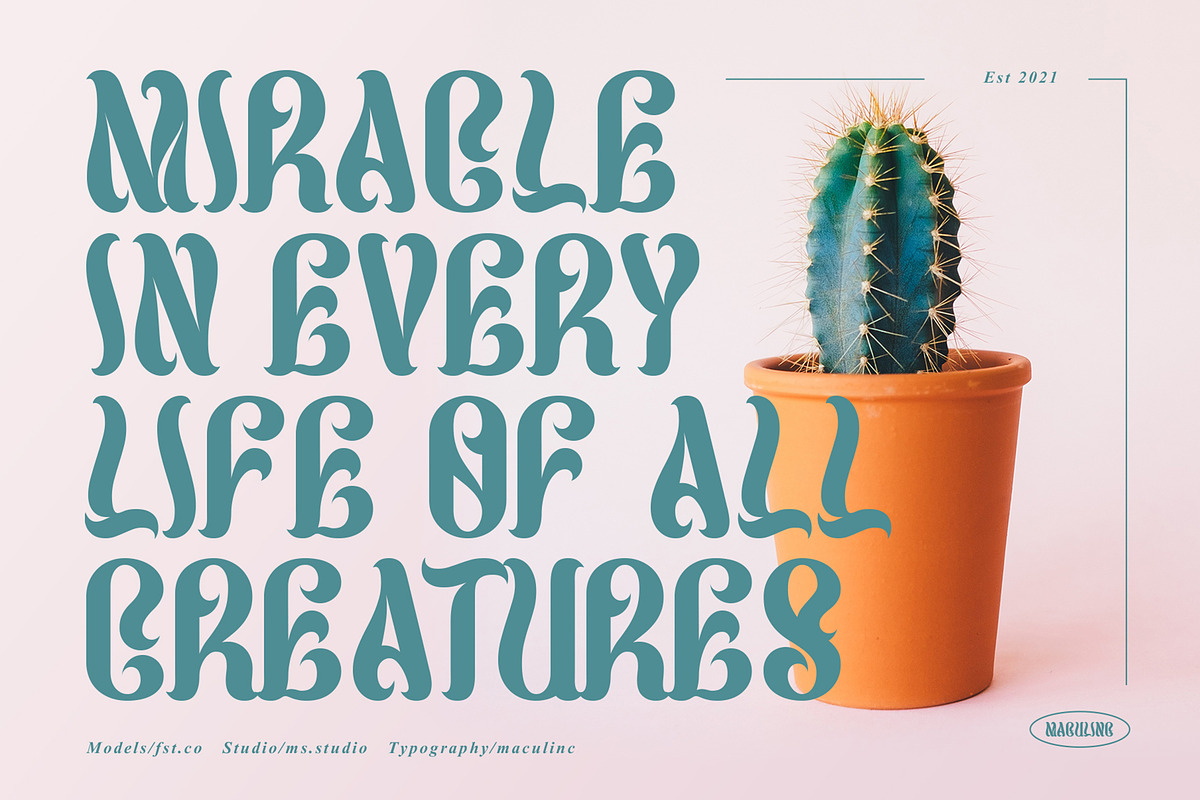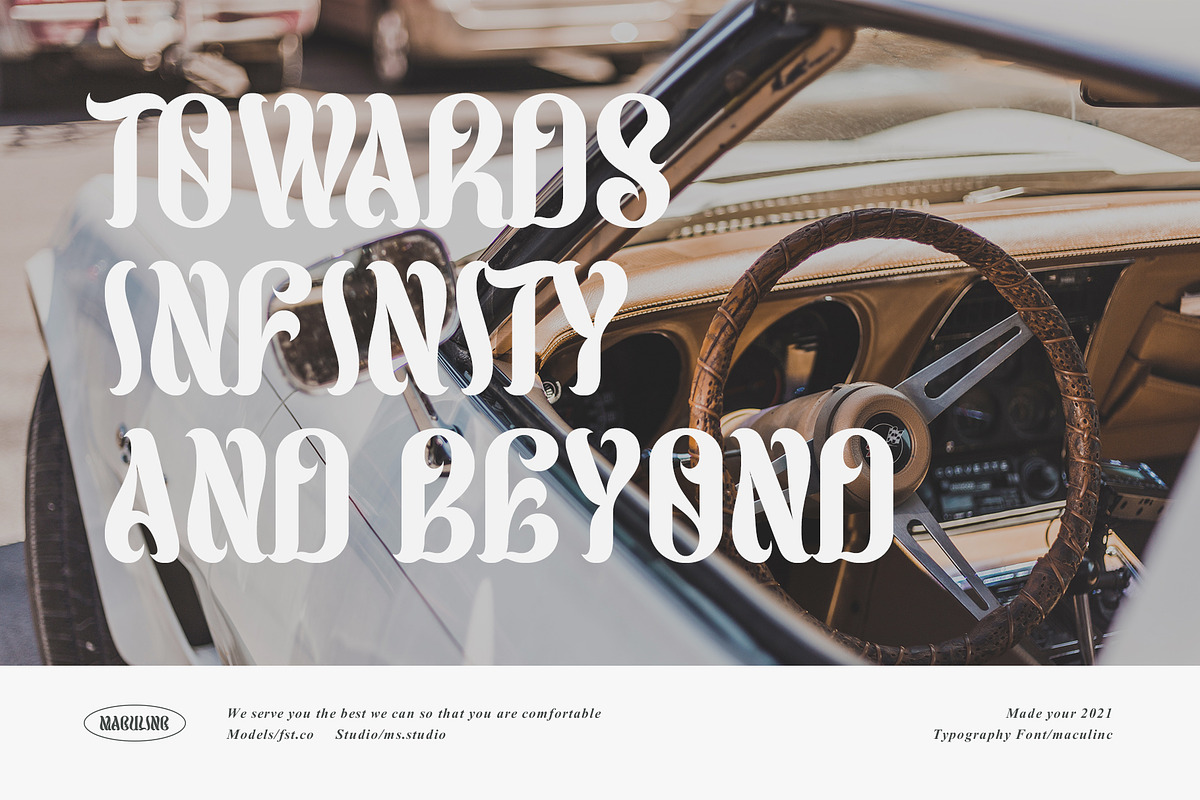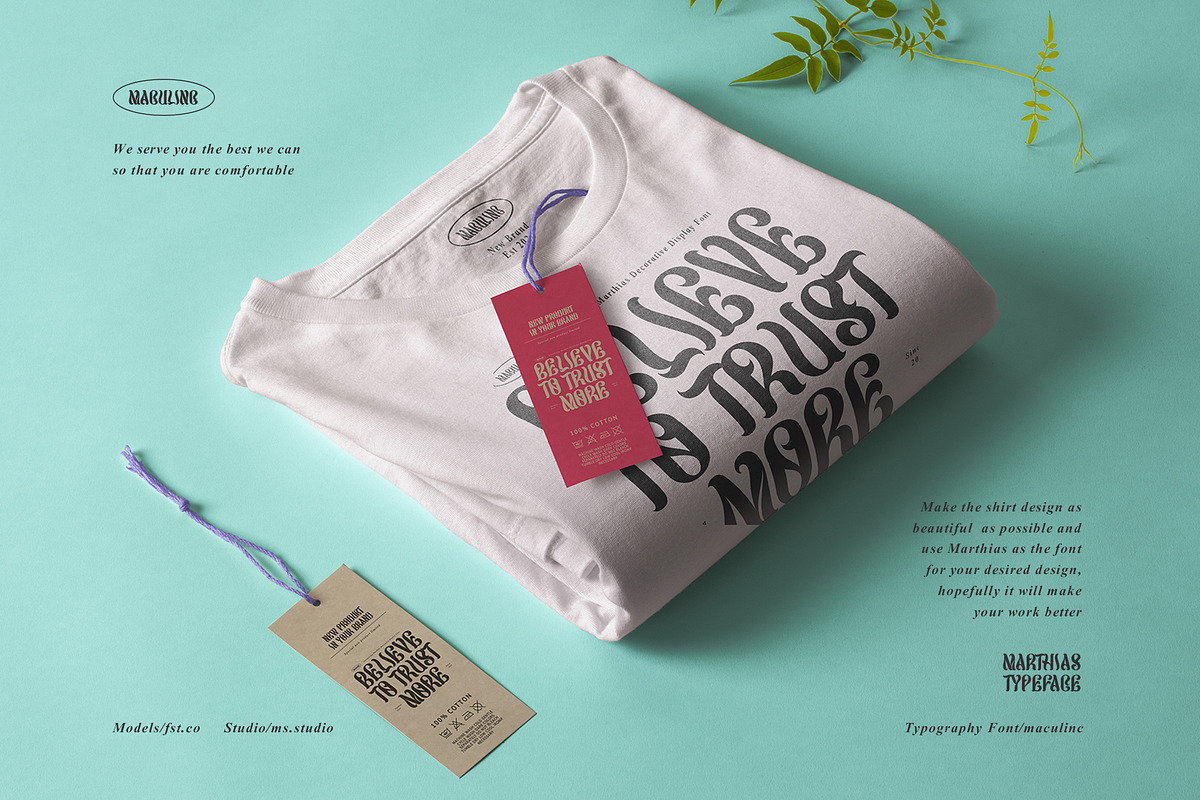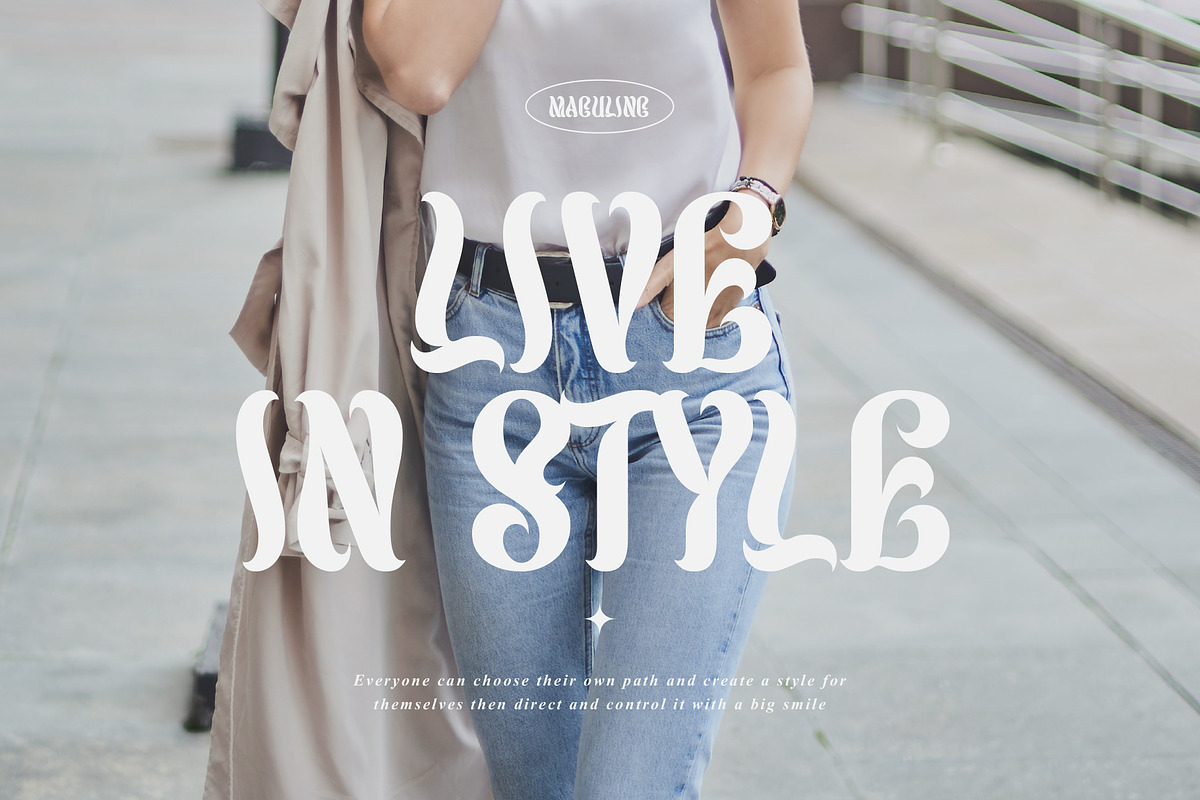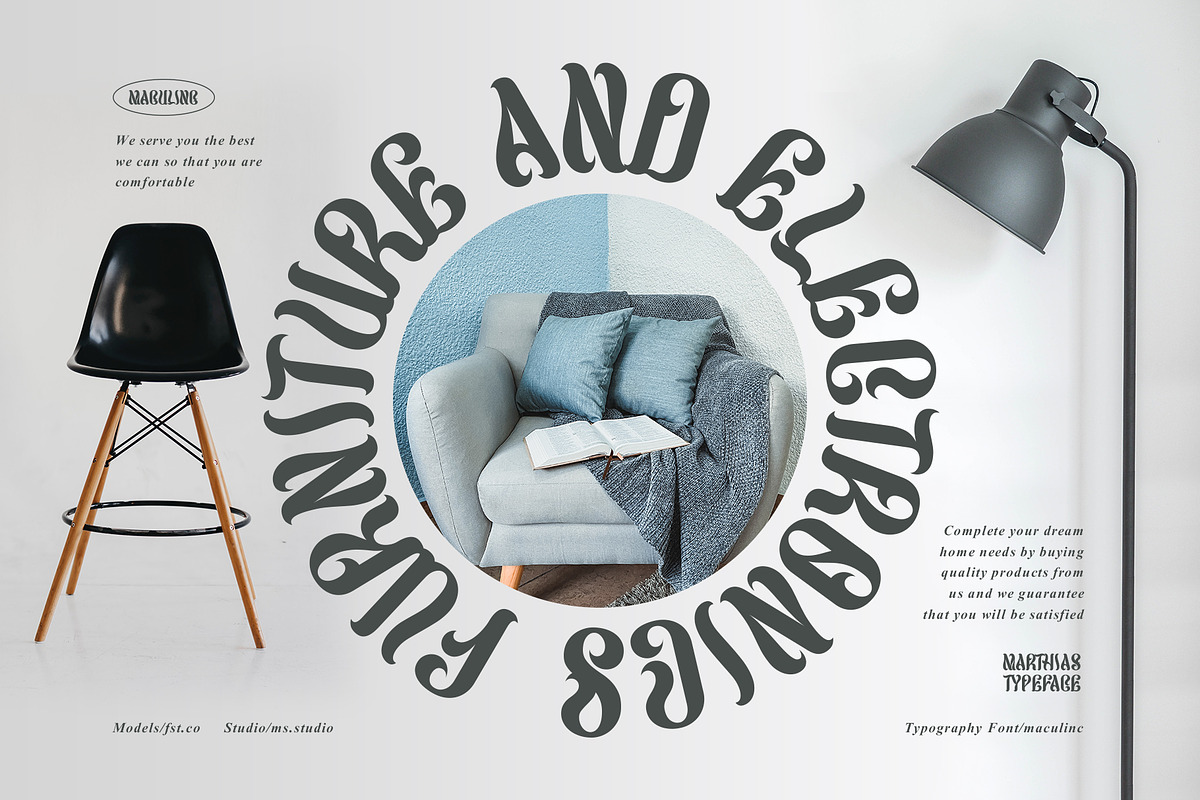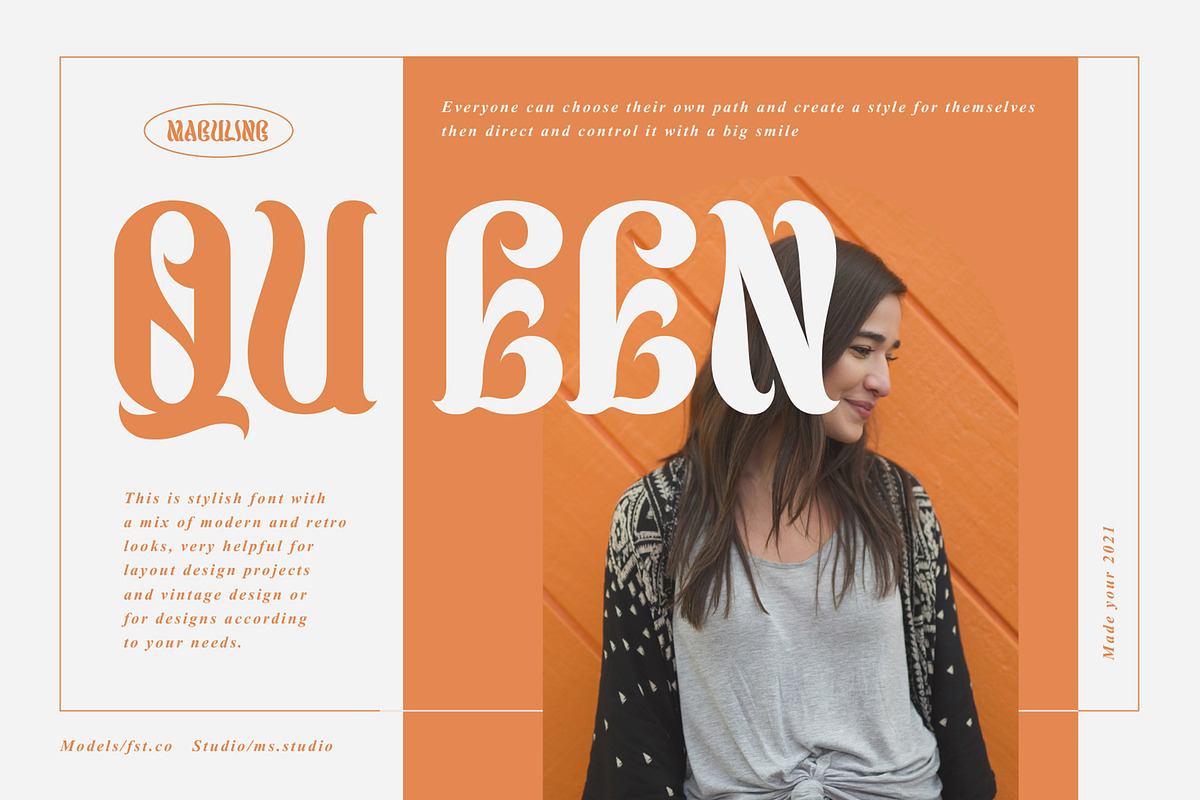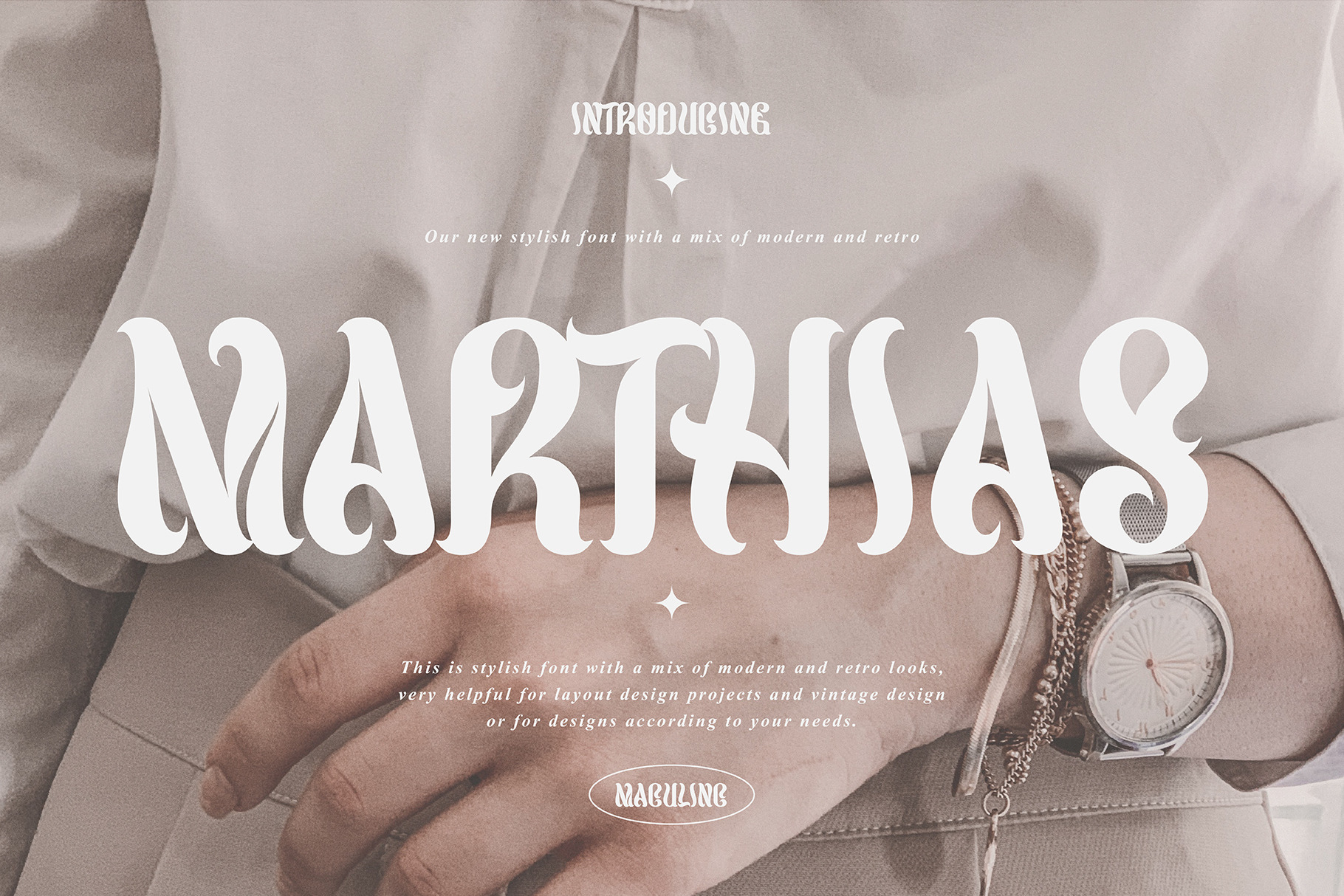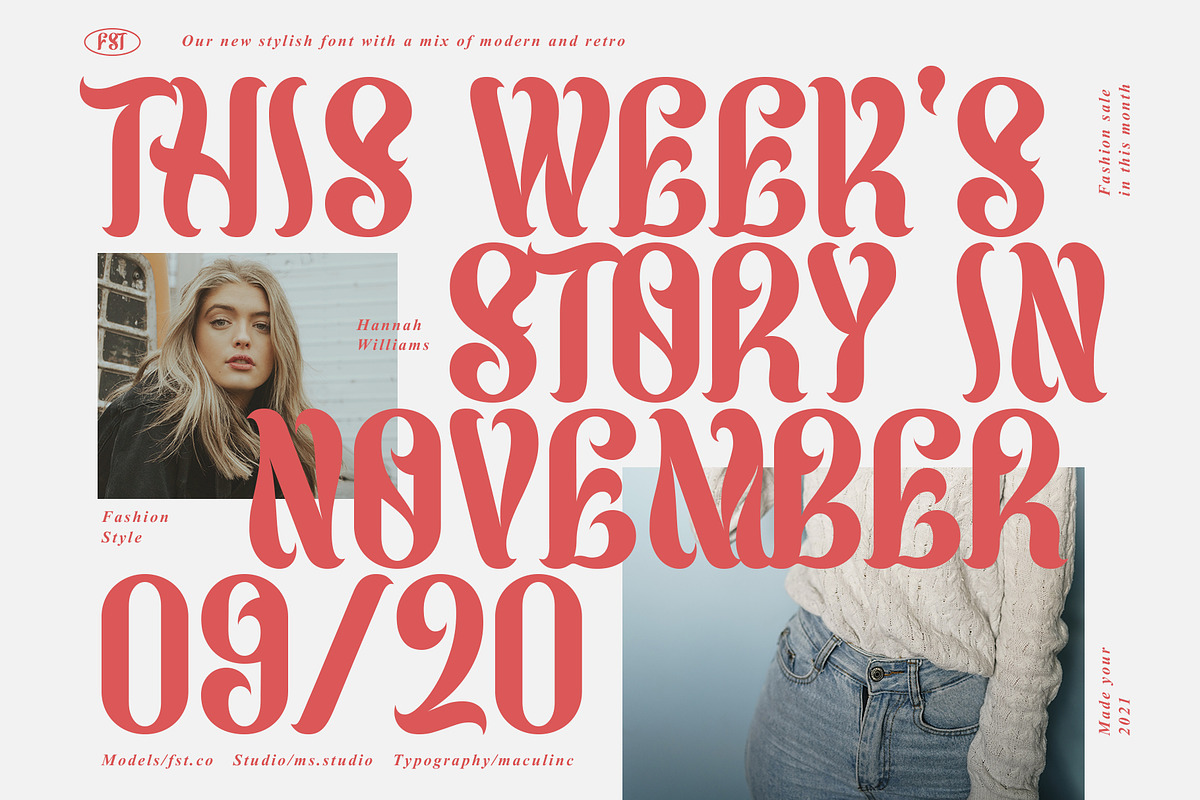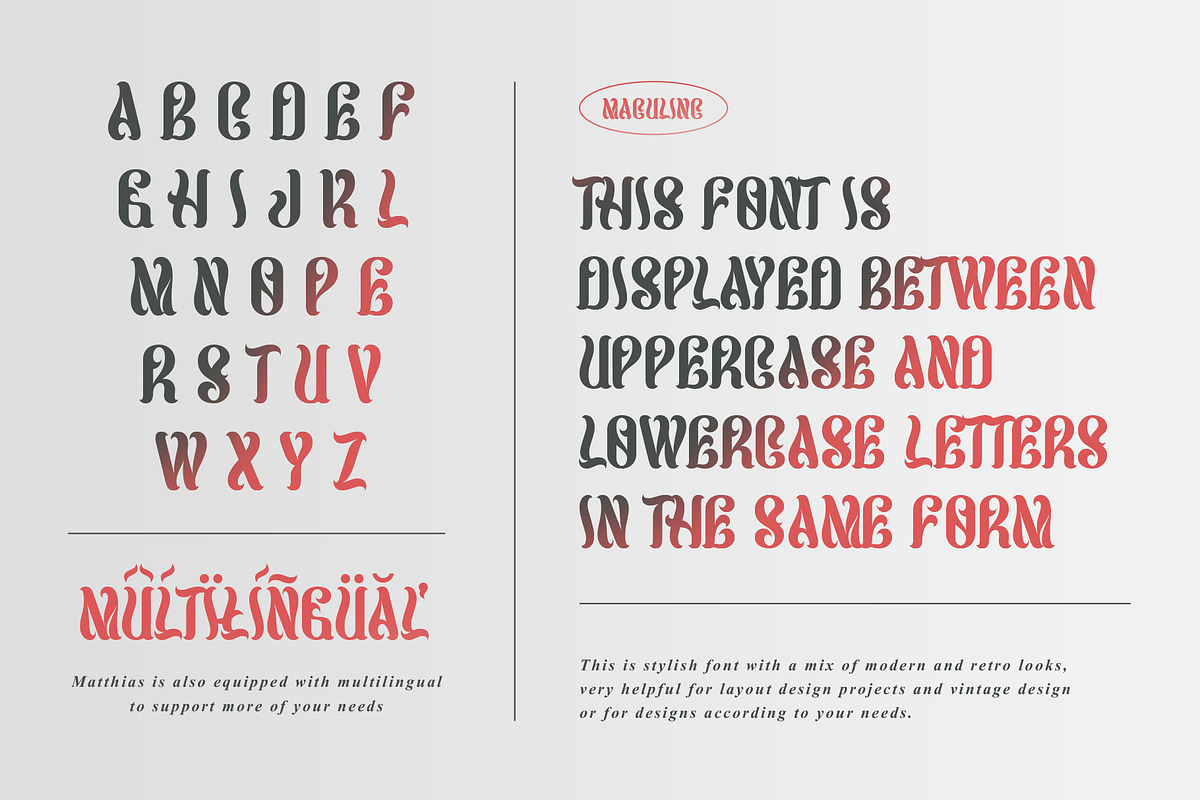
Marthias - Display Font
Marthias is a stylish font with a mix of modern and retro looks, very helpful for layout design projects, posters, logos, brands, packaging, vintage and modern style designs or for other designs.
Marthias is displayed between uppercase and lowercase letters in the same form, and Marthias is also equipped with multilingual to support more of your needs.